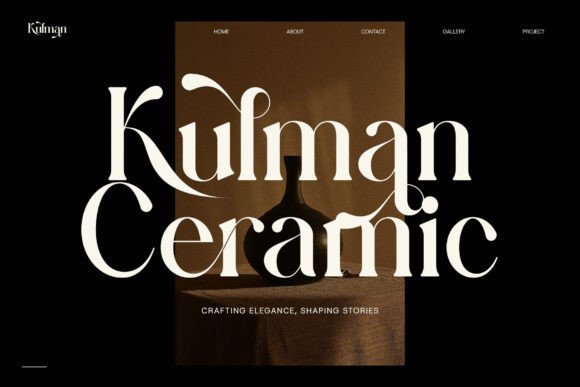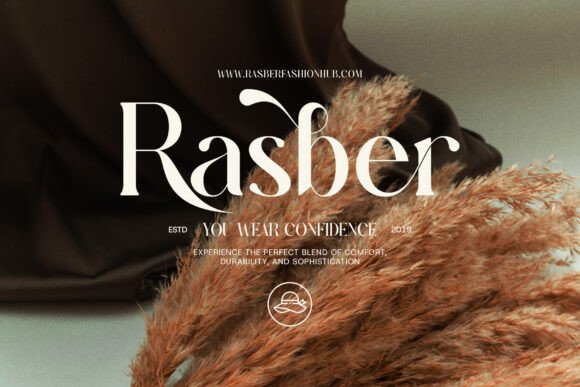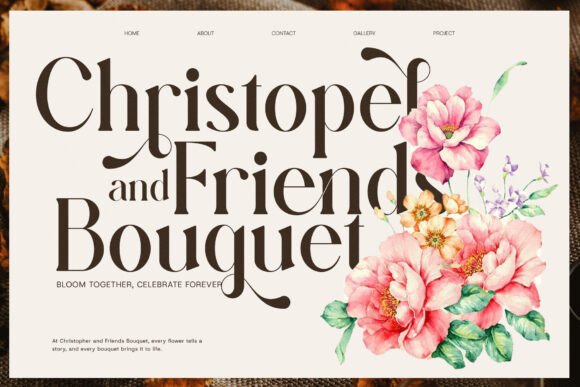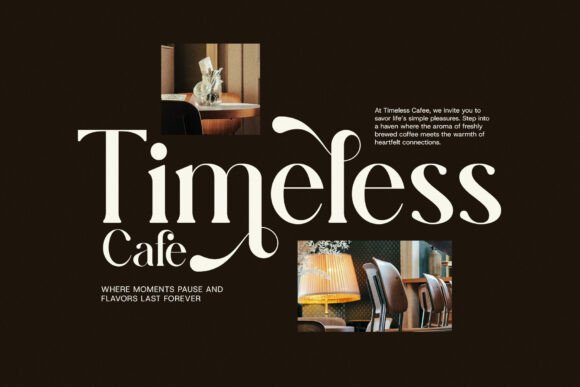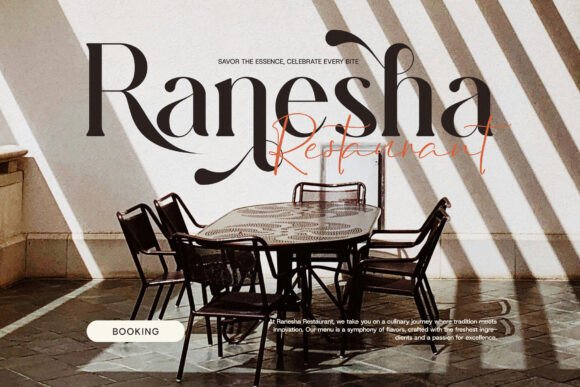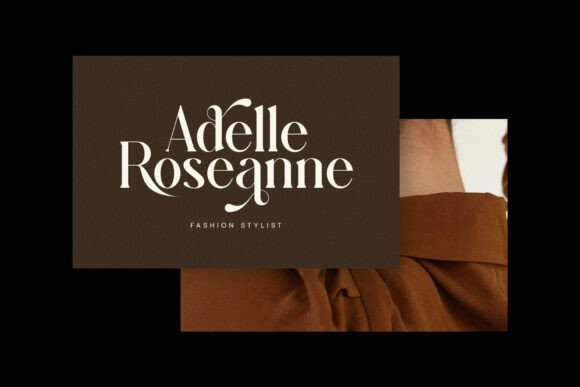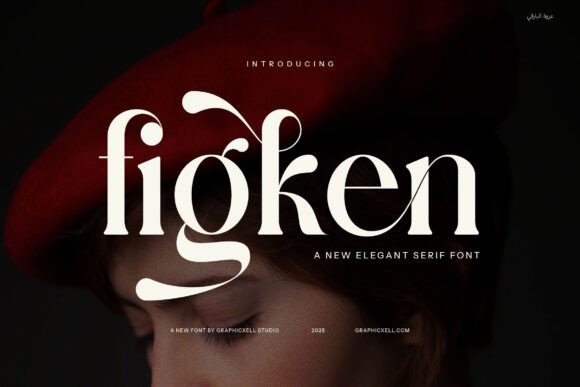
Introducing Figken Font: Elevate Your Design with Elegance and Sophistication
In the world of typography, a font can make all the difference in the success of a design project. For designers and crafters seeking to add a touch of luxury and sophistication to their work, Figken Font is an exceptional choice. Figken Elegant Serif is a refined and contemporary typeface that embodies the perfect blend of classic elegance and modern versatility.
The Design Philosophy of Figken Font
Figken Font is designed with smooth curves, sharp serifs, and graceful proportions, making it an ideal choice for a wide range of design applications. The font’s sleek and polished aesthetic is perfect for branding, luxury packaging, editorial layouts, and digital platforms. Whether you’re creating a high-end logo, a striking magazine cover, or an elegant website, Figken Font enhances any design with a sophisticated and upscale feel.
What Makes Figken Font Stand Out?
One of the key features that sets Figken Font apart from other typefaces is its exquisite ligatures and unique alternates. These refined details add character and fluidity to typography, bringing a sense of exclusivity and distinction to any design project. The ligatures and alternates allow designers to create a more personalized and creative look, making their work stand out in a crowded design landscape.
Versatility and Readability
Figken Font is not only elegant but also versatile and highly readable. The well-balanced contrast and refined letterforms make it an excellent choice for both bold headlines and sophisticated body text. This means that designers can use Figken Font for a wide range of applications, from large-scale signage and billboards to smaller-scale projects like business cards and social media graphics.
Adaptability to Different Design Aesthetics
One of the most significant advantages of Figken Font is its adaptability to different design aesthetics. Whether you’re going for a minimal and sleek look or a luxurious and opulent feel, Figken Font adjusts effortlessly to meet your design needs. This versatility makes it an excellent addition to any designer’s toolkit, as it can be used across various projects and industries.
Applications of Figken Font
Figken Font is suitable for a wide range of design applications, including:
- Branding: Create a lasting impression with a custom logo or wordmark that exudes sophistication and elegance.
- Luxury Packaging: Elevate your product packaging with a refined and upscale aesthetic that reflects your brand’s values.
- Editorial Layouts: Add a touch of elegance to your magazine covers, articles, and editorials with Figken Font’s classic yet modern design.
- Digital Platforms: Enhance your website, social media graphics, and digital advertising with a polished and sophisticated typography.
Figken Font is an exceptional typeface that offers designers and crafters a unique opportunity to elevate their work with elegance and sophistication. With its refined design, exquisite ligatures, and versatility, Figken Font is perfect for a wide range of design applications. Whether you’re looking to create a high-end brand, a striking editorial layout, or an elegant digital platform, Figken Font is an excellent choice. Experience the power of Figken Font and take your design to the next level.